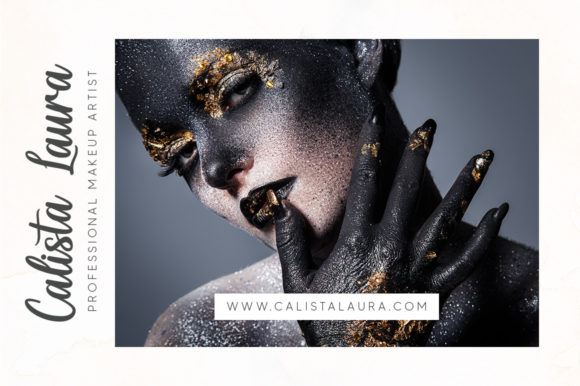
Cayla Stylish Font
db-ku.com - Script & Handwritten -- Cayla Stylish is an elegant handwritten font. With its very well-rounded letters, this design will look stunning on wedding invitations, thank you cards, business cards, and every other design that needs a handwritten touch!